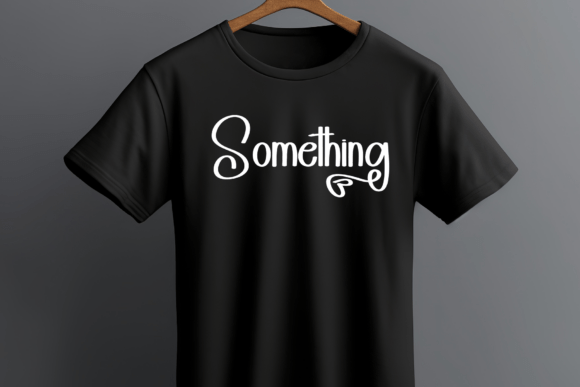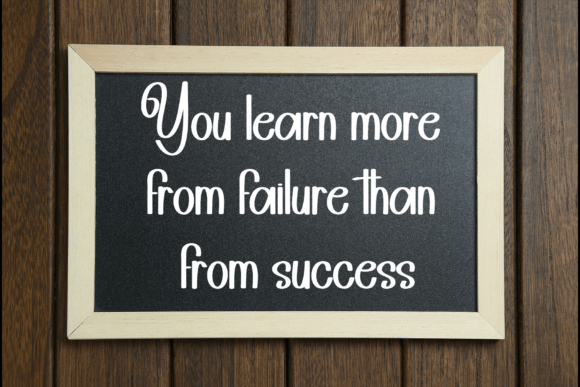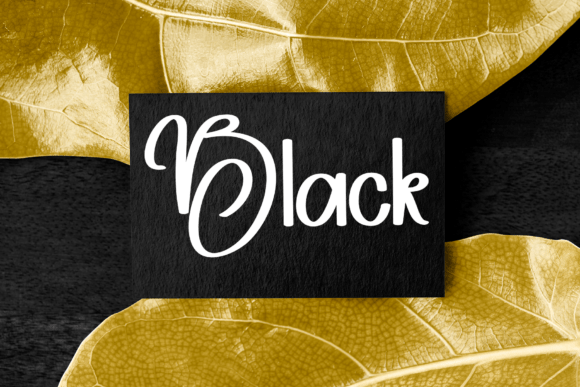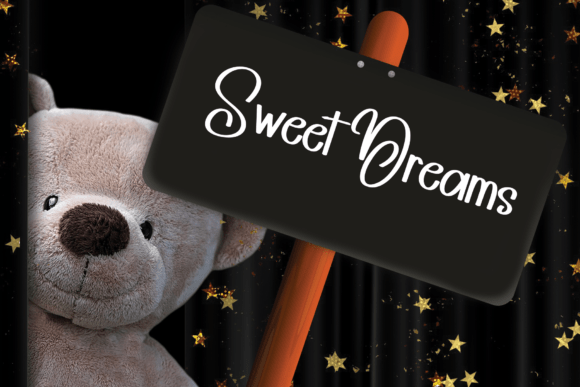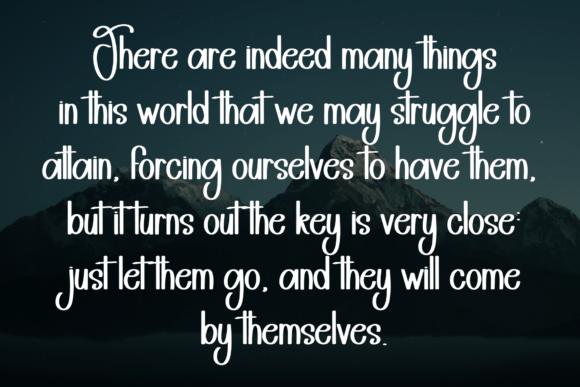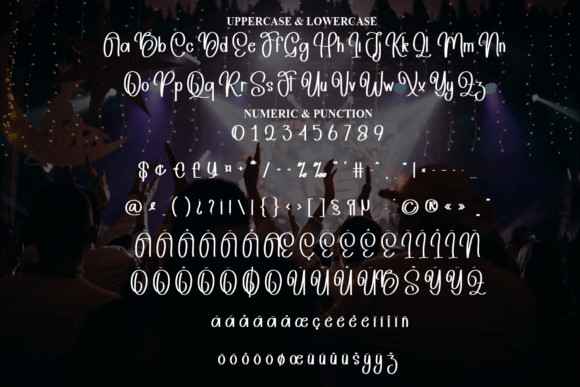
Nightparty Font – Free Download
Introduction to Nightparty Font
This script handwritten font was made to feel personal and expressive—just like your most creative ideas.
With its natural flow and smooth curves, it adds charm and character to any project Perfectly legible and full of personality, this font works beautifully for titles, body text, or decorative elements.
Key Features of Nightparty Font
Why Choose Nightparty Font?
Nightparty Font offers exceptional quality and versatility, making it a valuable addition to your design toolkit. Whether you’re creating for personal projects or commercial use, Nightparty Font delivers professional results.